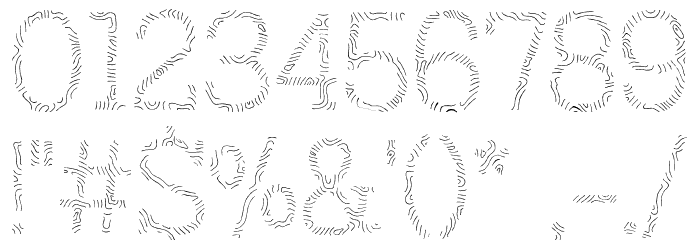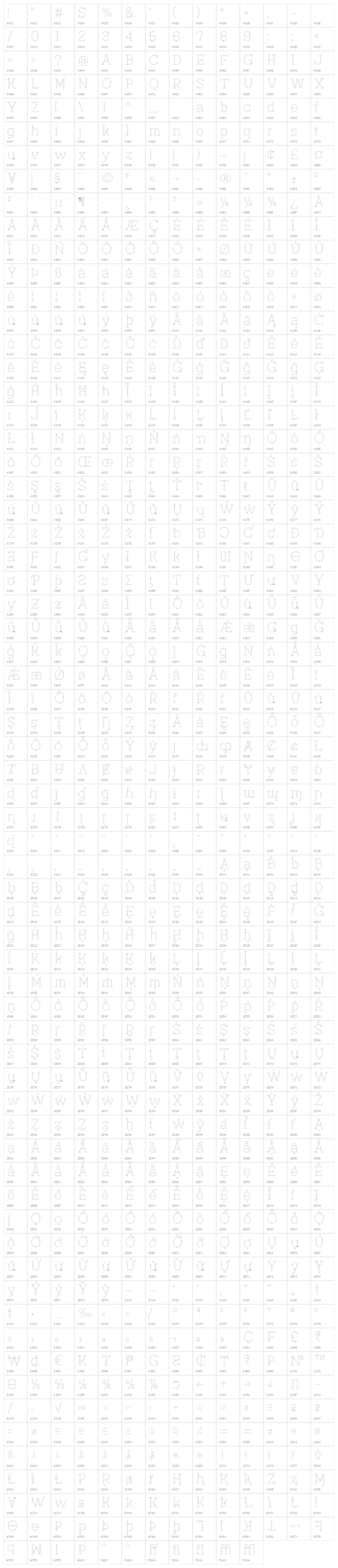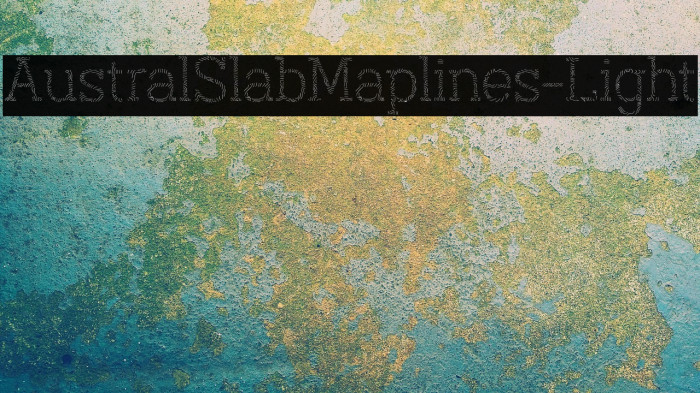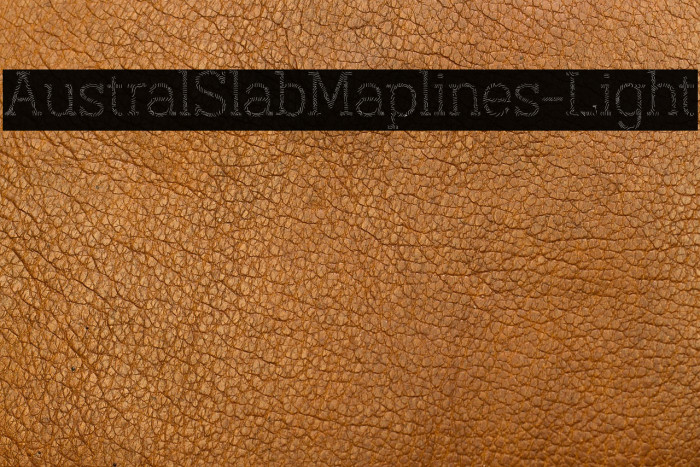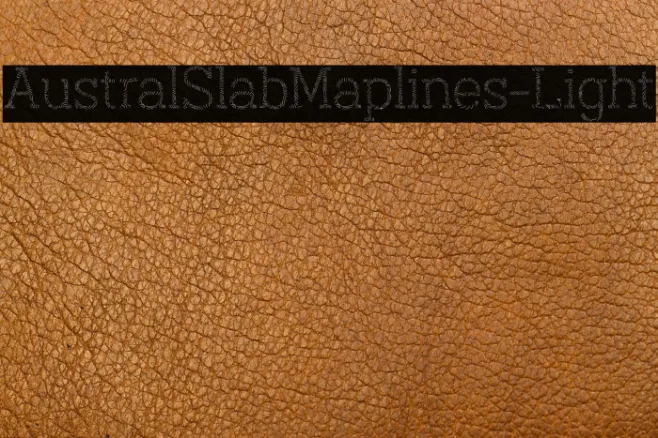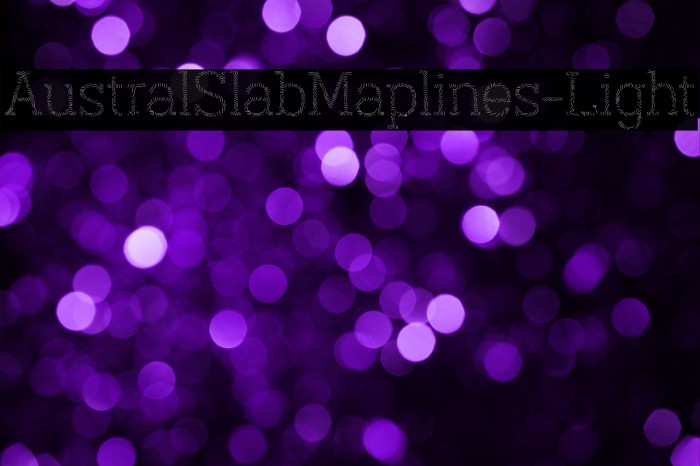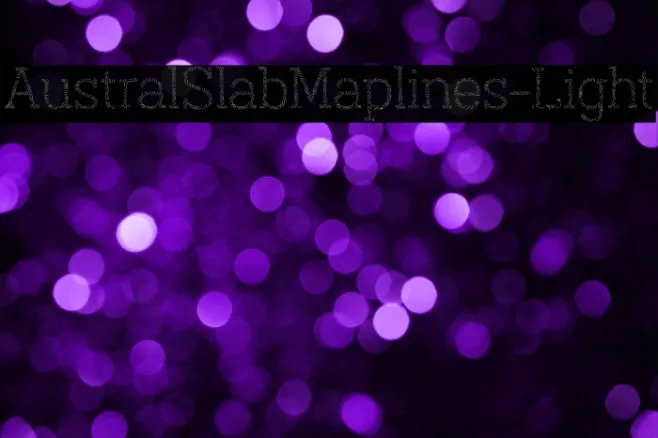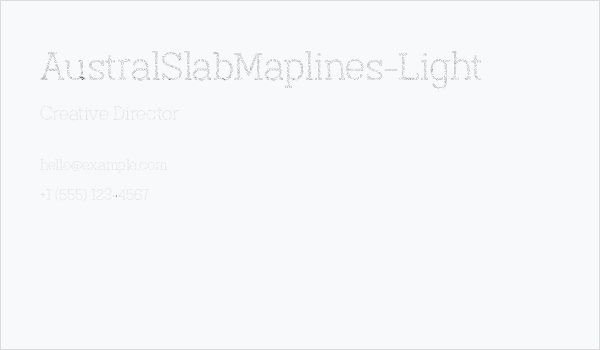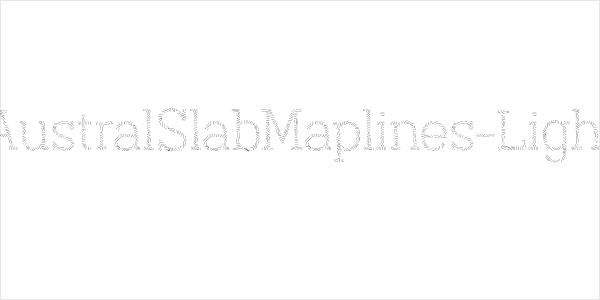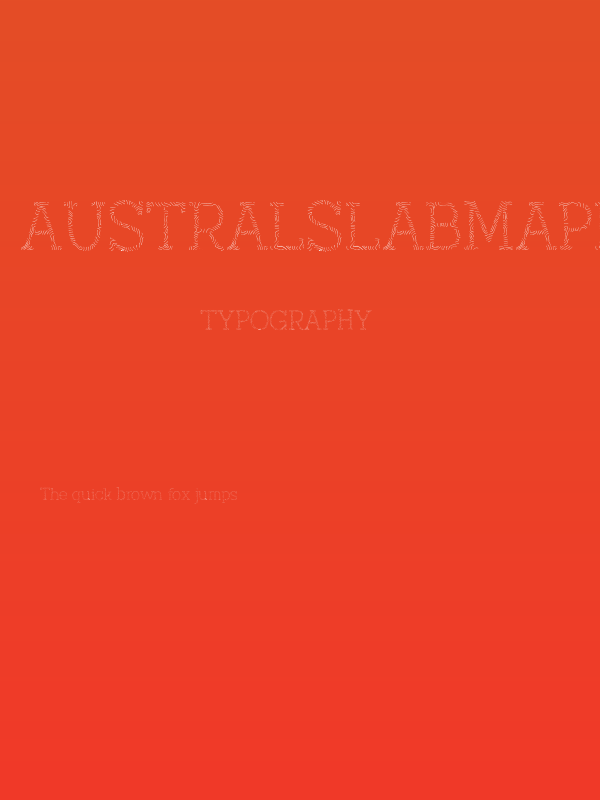
AustralSlabMaplines-Light Font
AustralSlabMaplines-Light Description
This font features a unique and intricate design with a slab serif style. Each character is composed of a series of fine, map-like lines that create a textured appearance, giving it a distinctive and artistic look. The uppercase and lowercase letters maintain a consistent style, with the serifs adding a touch of classic elegance. The numbers and special characters are equally detailed, ensuring a cohesive visual experience across all glyphs. This font's light weight and detailed line work make it stand out, offering a creative twist on traditional serif fonts.